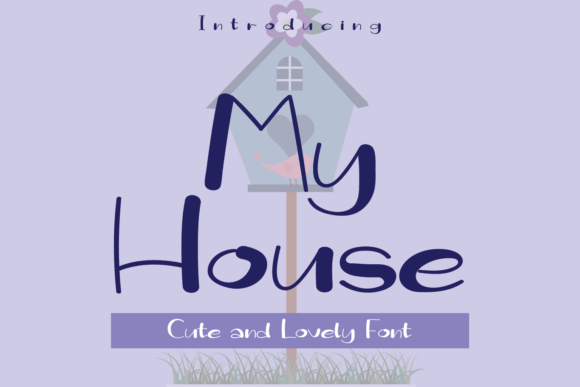
Prepare to be mesmerized by My House Font, the enchanting display font poised to transform your creative visions into masterpieces. Crafted with meticulous attention to detail, this font exudes a unique blend of whimsy and sophistication, promising to elevate your designs to new heights.
Immerse yourself in the world of My House Font, where each character dances with a lively energy, capturing the essence of untamed creativity. Its distinctive letterforms, infused with personality and charm, are sure to leave a lasting impression, whether you're crafting eye-catching logos, captivating social media posts, or simply adding a touch of flair to your personal projects.
Unleash your imagination and embrace the limitless possibilities that await you with My House Font. Its versatility knows no bounds, seamlessly adapting to a myriad of design styles and genres. From elegant invitations and wedding stationery to playful branding and product packaging, this font possesses the versatility to bring your creative concepts to life.
With My House Font as your trusty companion, you'll discover a new realm of design possibilities, where every project exudes a captivating allure. Its unique charm will effortlessly elevate your work, captivating your audience's attention and leaving them utterly spellbound.
Don't settle for ordinary fonts that blend into the background. Embrace the extraordinary with My House Font, the font that ignites creativity and propels your designs to the forefront. Its captivating presence will transform your projects into works of art, leaving an indelible mark on the minds of your audience.